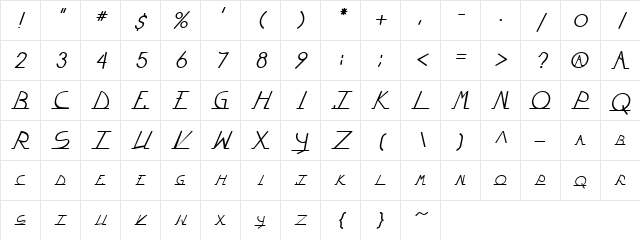
Havana is a composed and adaptable typeface that performs quietly and consistently across a wide range of design contexts. The slanted form adds forward momentum and visual energy.
Pro Tip: Use Havana for emphasis, pull quotes, and subheadings where its slanted energy can add rhythm to the layout.